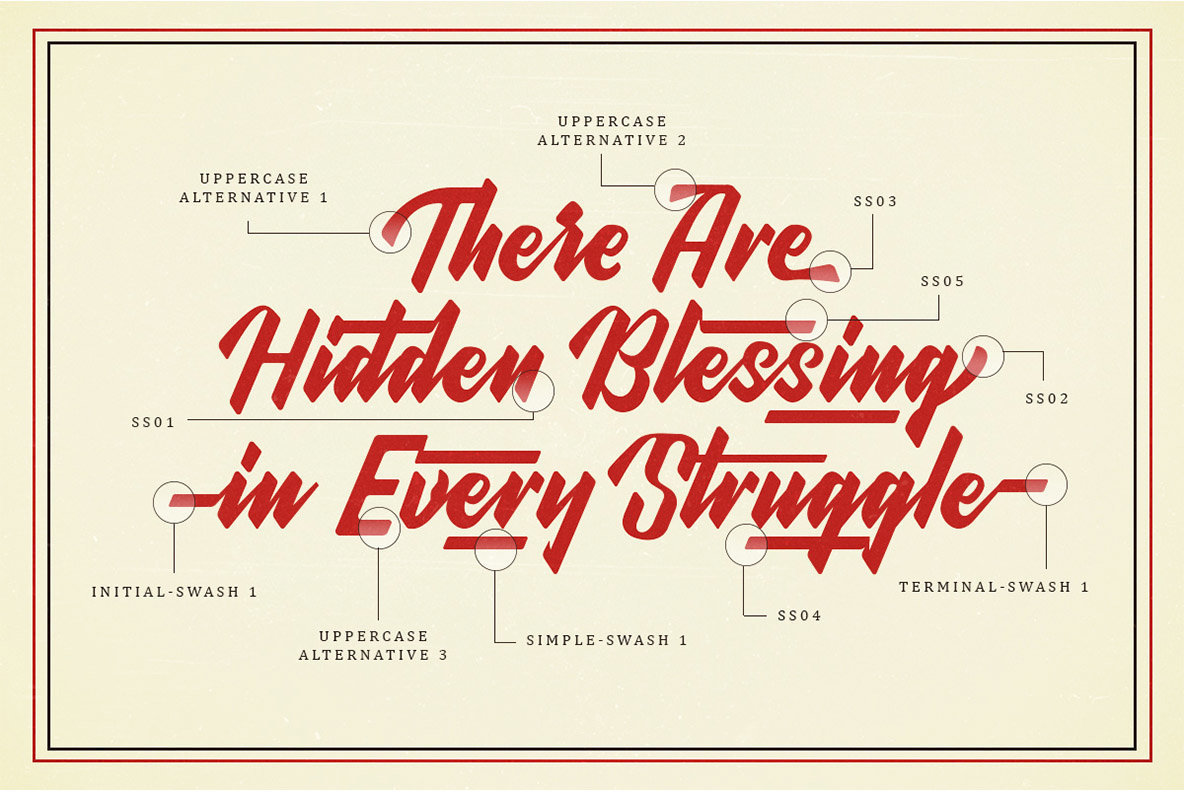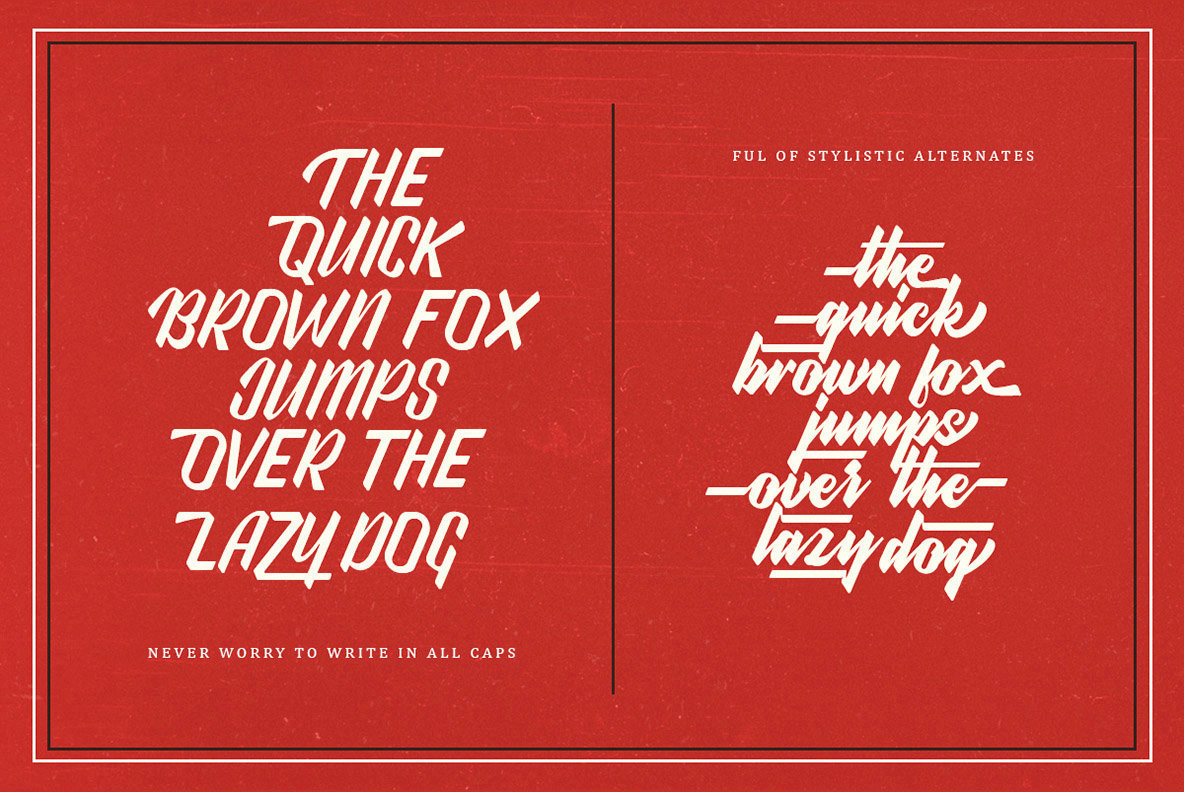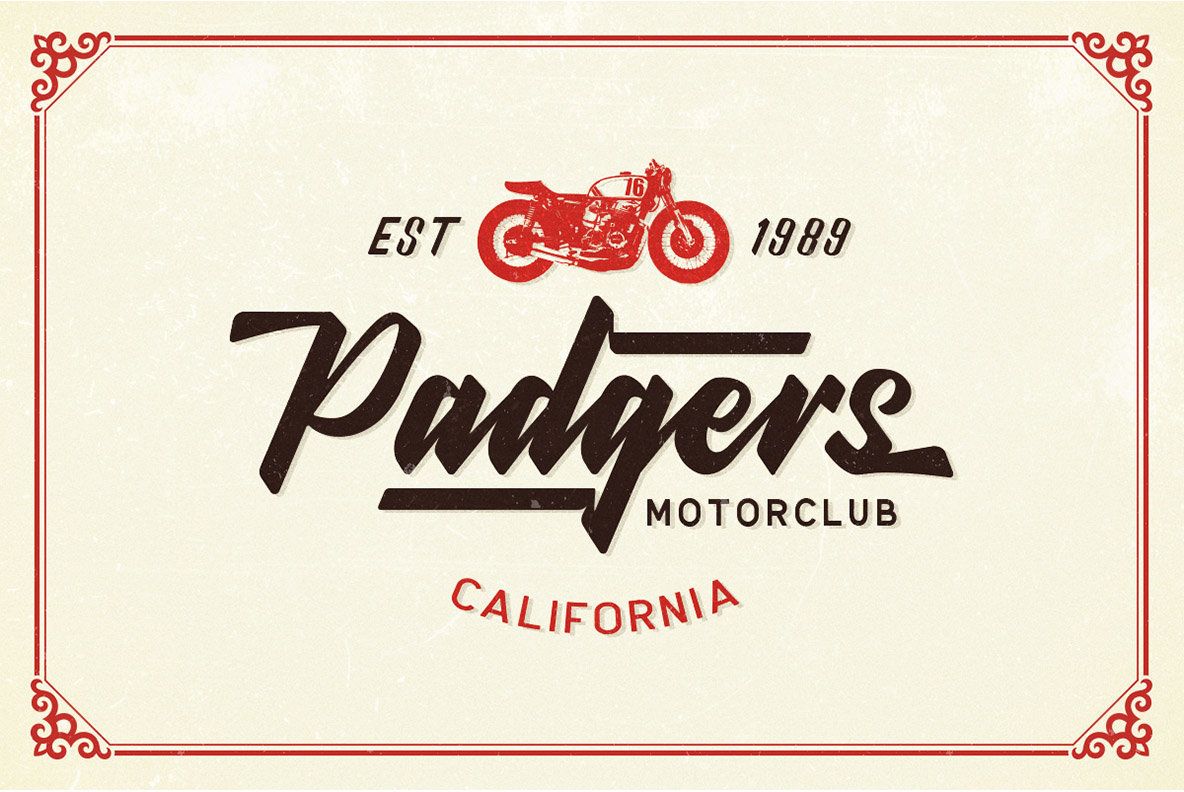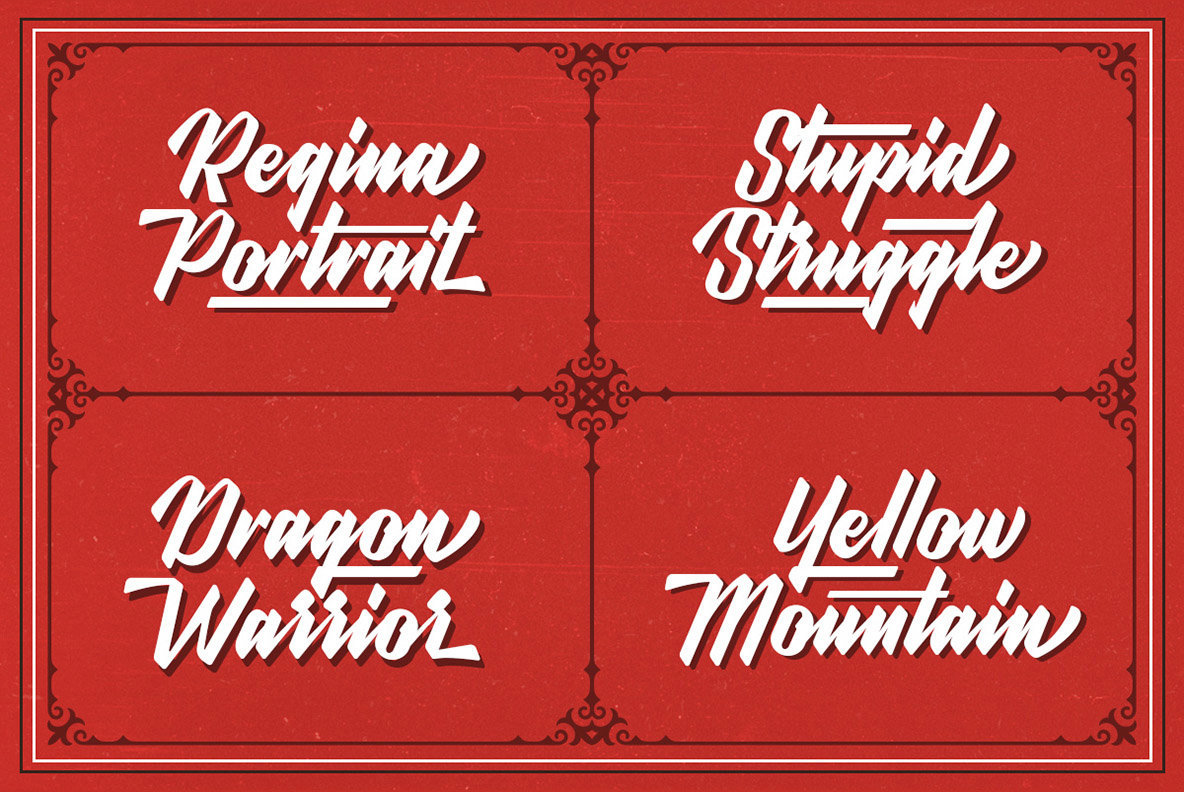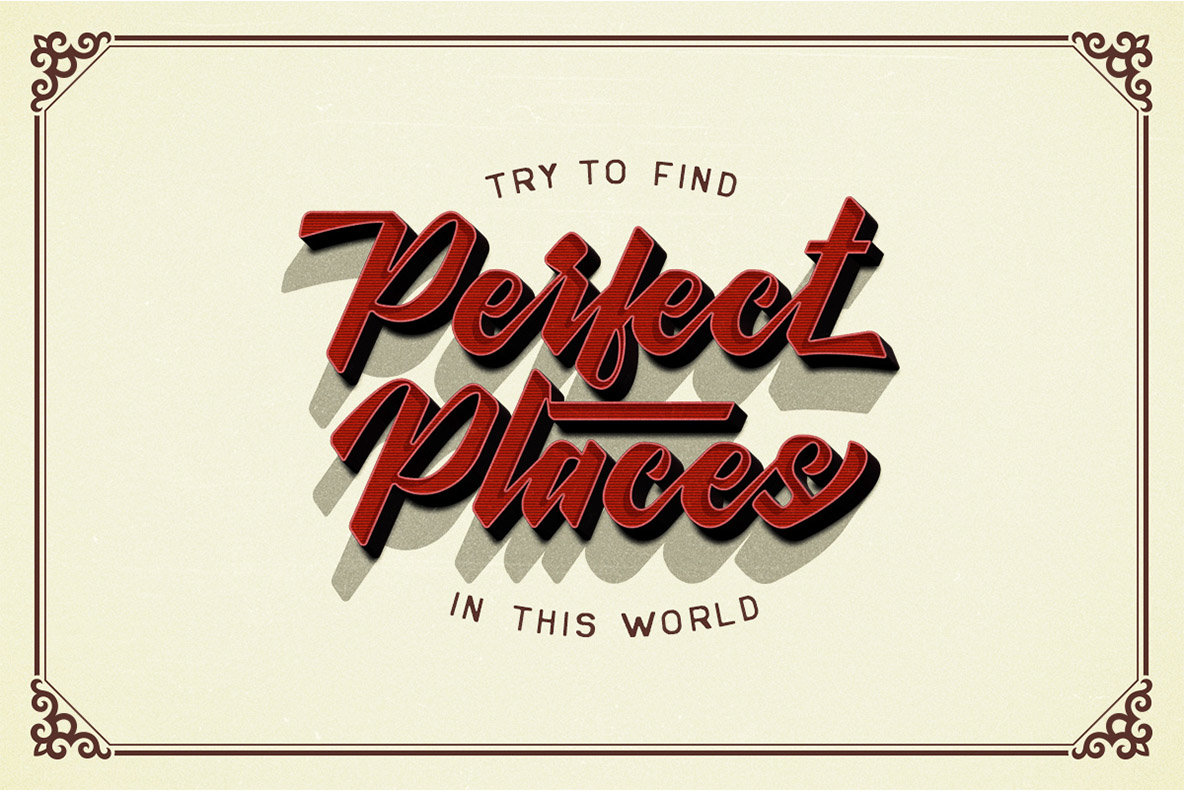
Wonder Stark Font
Wonder Stark by Letterhend Studio is a script typeface notable for its robust and striking characteristics. Designed to captivate, it's an excellent choice for logotypes or wordmarks, creating impactful badge designs, commanding sign boards, and head-turning posters. Its versatility also makes it ideal for headline text, stylish apparel, and romantic wedding invitations.Wonder Stark: Dynamic Bold Script Typeface